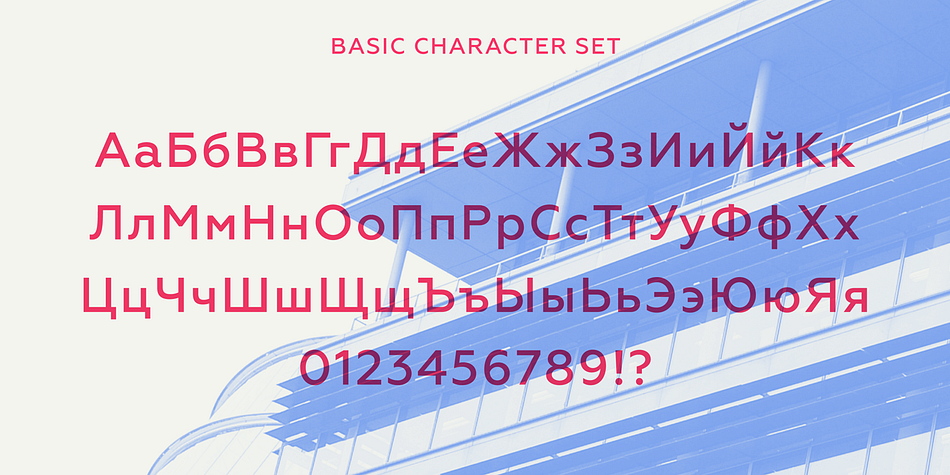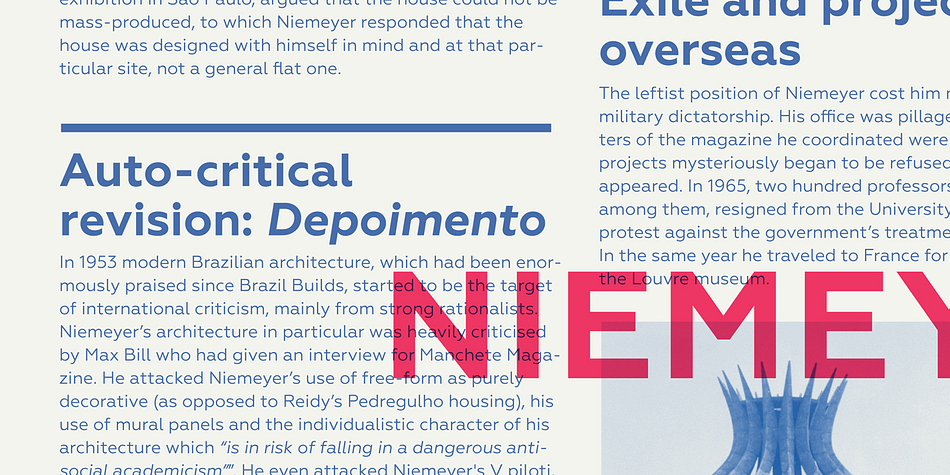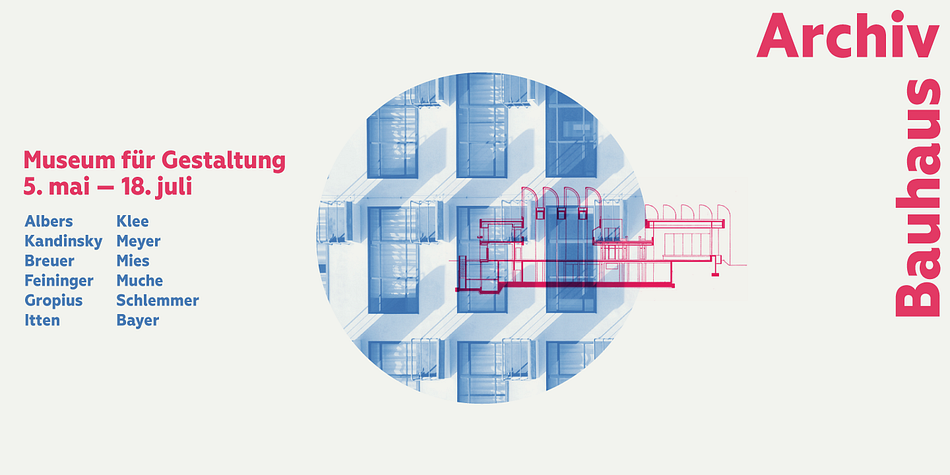
Geometria
Geometria is a sans serif font family. This typeface has twenty-four styles and was published by Brownfox.
Although geometric Sans Serifs have been in vogue for nearly a century, they have never been as ubiquitous.
It is not improbable that the old adage would be phrased: "When in doubt, set it in geometric sans", had it been composed today.
Have we not had enough?
We think, not.
Postmodern times demand a variety of expressions.
The vision behind Geometria was to revisit the perennial favourite to lend subtle individuality to its tried and true forms. Geometria stands out in the crowd of similar fonts thanks to its complicated nature.
It combines dynamic elements with a certain degree of stability.
A slightly higher waistline of the capitals contributes to their distinctive appearance.
If the upper case refers to the American grotesques of the 19th century, the lower case tends toward the forms of the Renaissance in its proportions.
Geometria is a typeface of clean shapes that is well-suited for continuous reading, and it sets remarkably well.
At the same time, it can be friendly, even flirtatious.
Its distinct personality combines seeming opposites.
At times it may appear serious, at times playful.
On occasion, it may be deliberate, other times dynamic.
It could seem rigid, then elegant.
It is a typeface that could be perceived either as cutting-edge, or as nostalgic.
Although geometric Sans Serifs have been in vogue for nearly a century, they have never been as ubiquitous. It is not improbable that the old adage would be phrased: “When in doubt, set it in geometric sans”, had it been composed today. Have we not had enough? We think, not. Postmodern times demand a variety of expressions.
The vision behind Geometria was to revisit the perennial favourite to lend subtle individuality to its tried and true forms. Geometria stands out in the crowd of similar fonts thanks to its complicated nature. It combines dynamic elements with a certain degree of stability. A slightly higher waistline of the capitals contributes to their distinctive appearance. If the upper case refers to the American grotesques of the 19th century, the lower case tends toward the forms of the Renaissance in its proportions.
Geometria is a typeface of clean shapes that is well-suited for continuous reading, and it sets remarkably well. At the same time, it can be friendly, even flirtatious. Its distinct personality combines seeming opposites. At times it may appear serious, at times playful. On occasion, it may be deliberate, other times dynamic. It could seem rigid, then elegant. It is a typeface that could be perceived either as cutting-edge, or as nostalgic. A careful and discerning typographer will bring out and emphasize those aspects of its multifaceted personality that are needed to solve the problem at hand.
Geometria consists of 16 fonts - eight weights with matching italics. Geometria Narrow in 8 weights was added in 2016. The font includes multiple sets of figures and currency signs, alternate glyphs, a variety of experimental ligatures, and punctuation marks for the two cases.